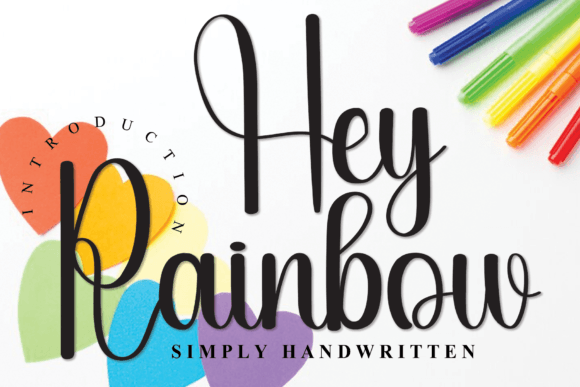
Welcome to the world of Hey Rainbow, a font family that has the power to transform your creative projects into true masterpieces. With its enchanting script style, this font will paint your words with a touch of elegance and whimsy, capturing the hearts of your audience.
Hey Rainbow is the epitome of versatility, seamlessly adapting to a wide range of design endeavors. Whether you're crafting a wall display that speaks volumes, a wedding invitation that sets the tone for a magical day, or a captivating social media post that demands attention, Hey Rainbow is your perfect companion. Its graceful curves and playful strokes add a personal touch to your designs, ensuring they stand out from the crowd.
But Hey Rainbow's allure doesn't stop there. Its charm extends to product packaging, product designs, and labels, infusing your products with a unique, hand-crafted appeal that customers can't resist. Elevate your photography with watermarks that add a touch of artistry, or create invitations that truly capture the essence of your special occasion. Let Hey Rainbow be your creative muse, guiding you to design heights you never thought possible.